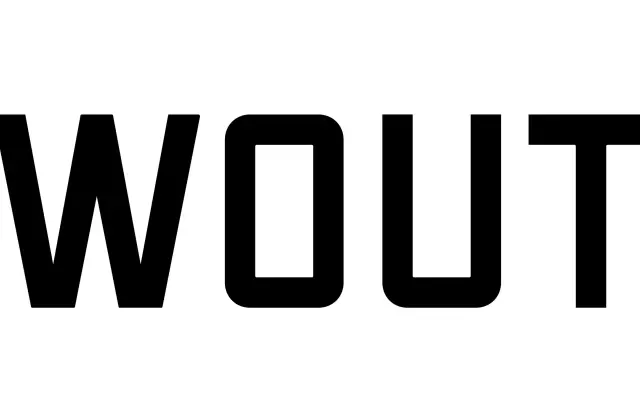
Gelbique
OTT Foundry · Eliott Grunewald
A condensed geometric display face drawn from lettering on a 1949 René Magritte exhibition poster, reconstructed into a complete alphabet by Eliott Grunewald.
The letterforms originate from a lithographic poster Magritte designed for the Second Film and Fine Arts World Festival of Belgium held at Knokke-le-Zoute, now held in the Magritte Museum in Brussels. Each glyph is built from a minimal set of components, pairing mechanically rounded curves with hard right angles to create strong counter forms and a distinctive silhouette. The family is split into two subfamilies named after Belgian coastal towns, Ostende being the base weight and Knokke a variant offering a different weight register.
A condensed, modular sans-serif derived from lettering on a 1949 René Magritte poster, built from mechanically rounded curves contrasted with right angles. Its highly constructed, display-oriented structure places it firmly in the geometric display category.